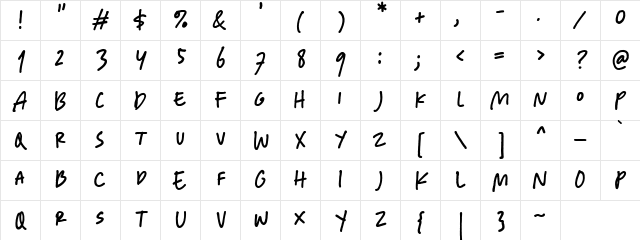
Bright Topic Demo Regular
Foundry: Letterhend Studio
Designer: Sarid Ezra
Design Context for Bright Topic Demo
Bright Topic Demo is a composed and adaptable typeface that performs quietly and consistently across a wide range of design contexts.
Pro Tip: Use Bright Topic Demo in both headline and body roles to test its range before committing to a single application.